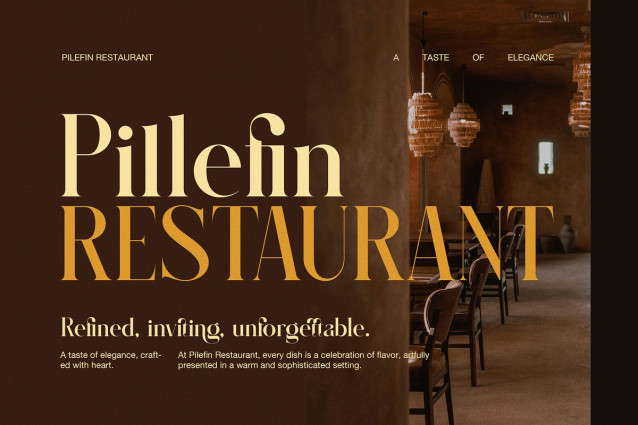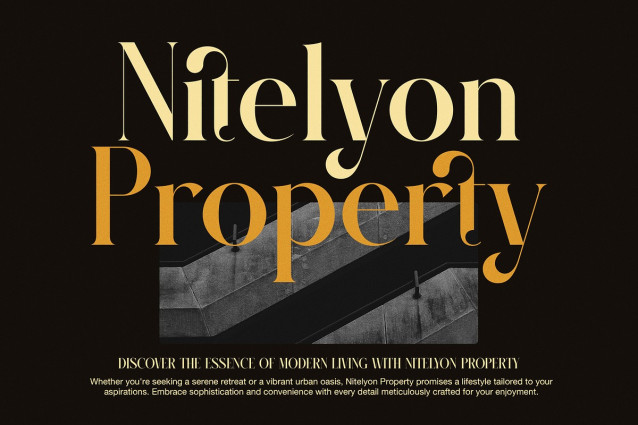
Gafilen Font
Gafilen Font is an elegant serif font made for modern designers who value style and clarity. It brings together classic serif charm with clean, refined lines. As a result, your designs will look both timeless and fresh.
This font features thin and thick strokes that create beautiful contrast. Because of this, it’s ideal for branding, logos, packaging, and editorial use. Whether you’re working on a wedding invitation or a fashion brand, Gafilen fits right in.